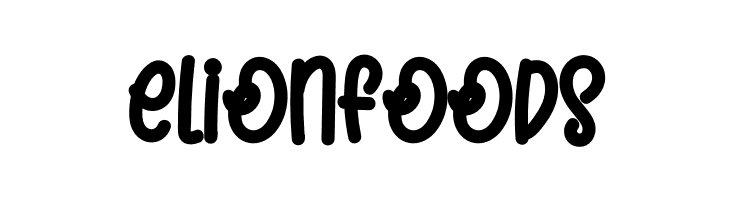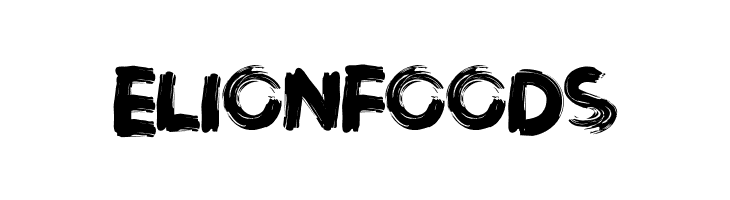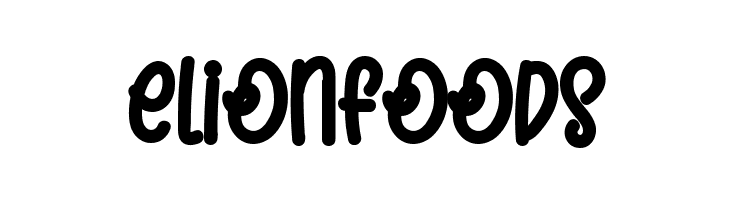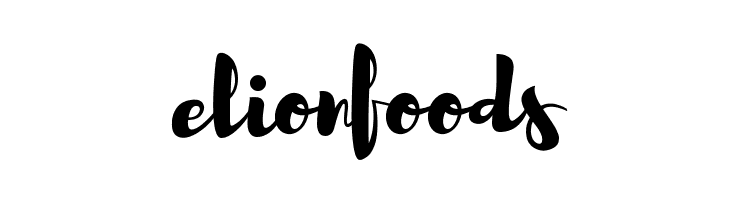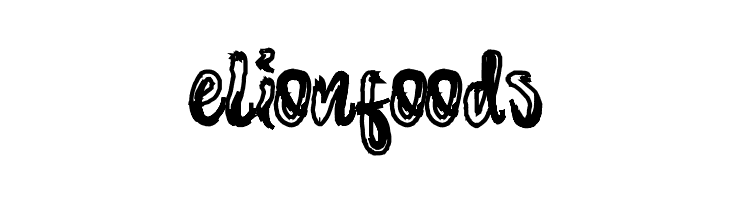
• Brotthers Free
A dynamic and expressive handwritten font with fluid strokes.
• Broukha Free Regular
A bold, geometric font with sharp angles and unique cutouts.
• Brown Sugar Bold
A bold, playful handwritten font with rounded characters.
• Brown Sugar Bold
A bold, playful font with rounded edges and a handwritten style.
• BROWNIElight
A geometric, angular font with a modern and minimalistic design.
• Brownies Regular
A bold, dynamic handwritten font with a modern flair.
• Brownwood NF
A bold, striking font with sharp angles and smooth curves.
• Brownwood Shadow NF
A bold, shadowed decorative font with strong visual impact.
• BrownwoodNFShadow
A bold, shadowed decorative font with a three-dimensional effect.
• Brrritty
• Brubeck AH
A dynamic, expressive handwritten font with irregular, organic strokes.
• Brubeck AH
A hand-drawn, artistic font with irregular strokes and a dynamic appearance.
• BruchRund
A bold blackletter font with sharp, angular strokes and a Gothic influence.
• BruchschriftMK
A bold, angular blackletter font with a modern twist.
• BruLinda
A modern serif font with elegant curves and flared strokes.
• brush Bold
• Brush Hand New
A bold, brush-style font with a handwritten, dynamic appearance.
• Brush_Of_Anarchy Bold
A bold, edgy font with sharp, jagged strokes and a rebellious style.
• brush-Bold
• Brushcheetah Regular
A bold, brushstroke font with a dynamic and handmade appearance.
• Brushcut
A bold, brush-style font with a lively, hand-painted look.
• Brushed